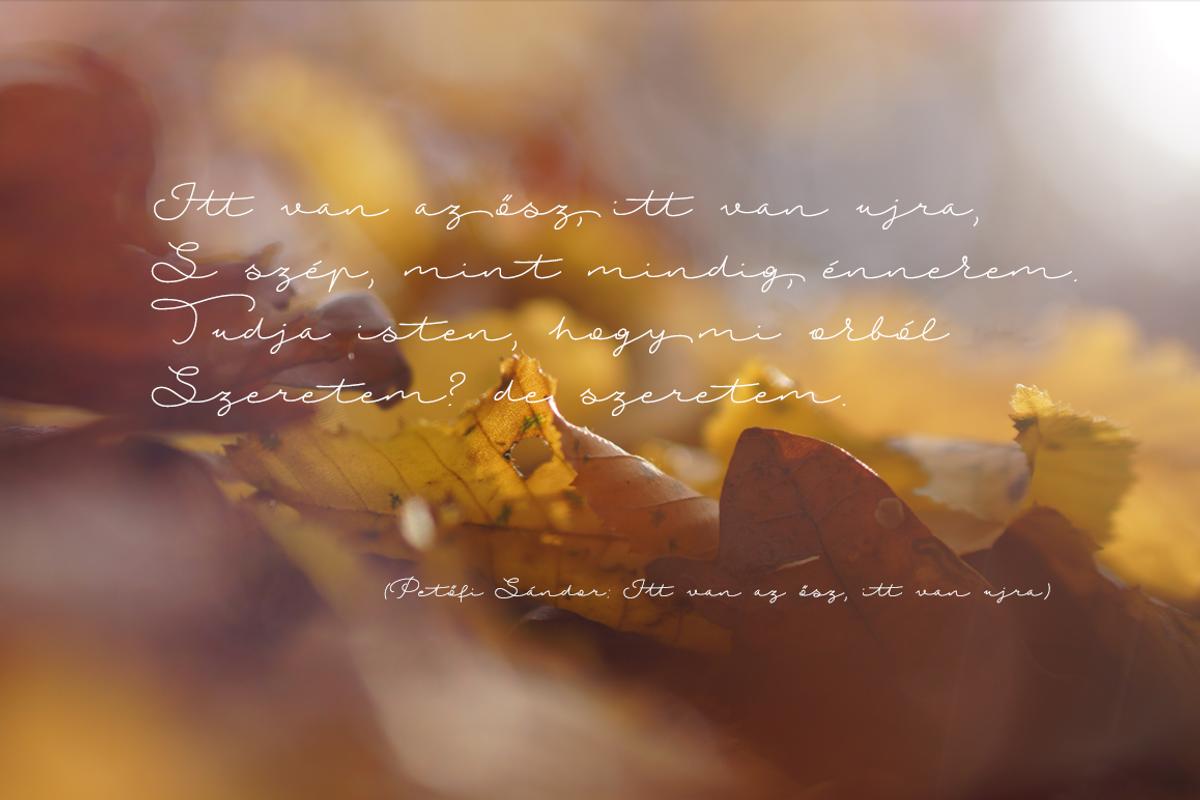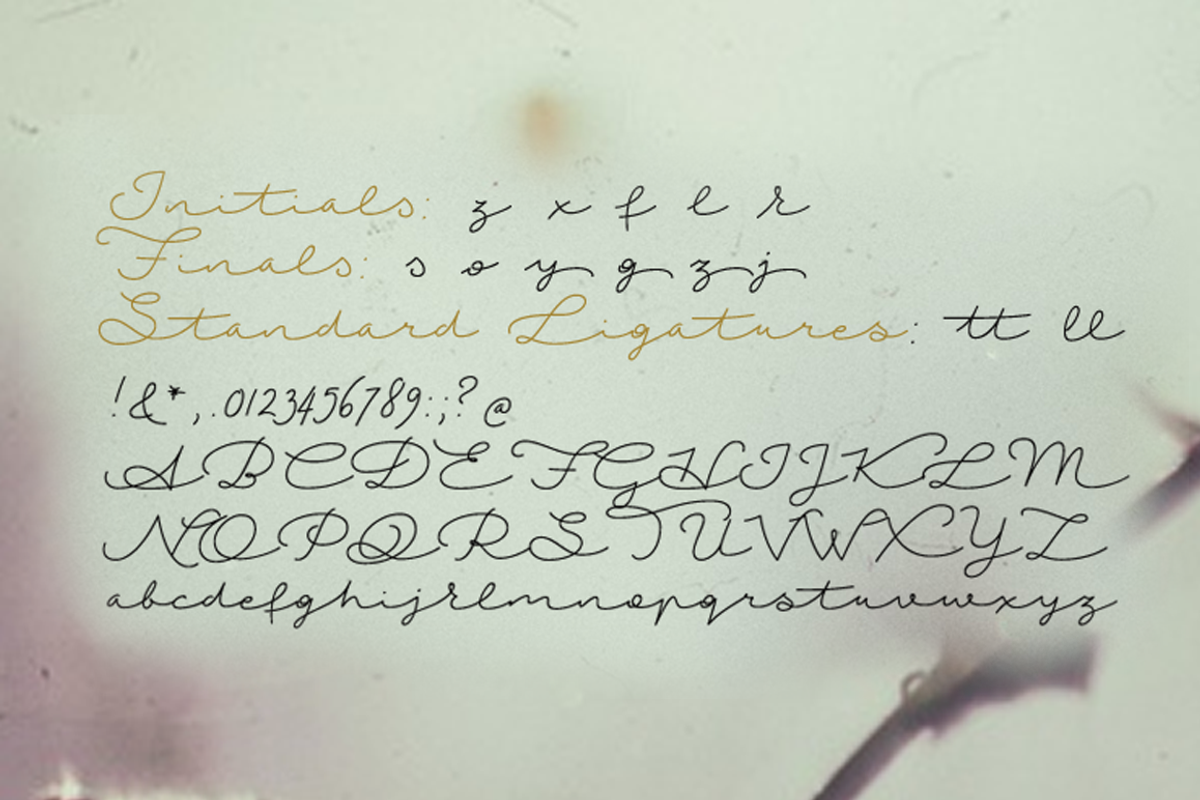
Autumn Chant is a handwritten, casual monoline script with a warm and inviting feel. Its effortless strokes make it perfect for adding a personal touch to any design.